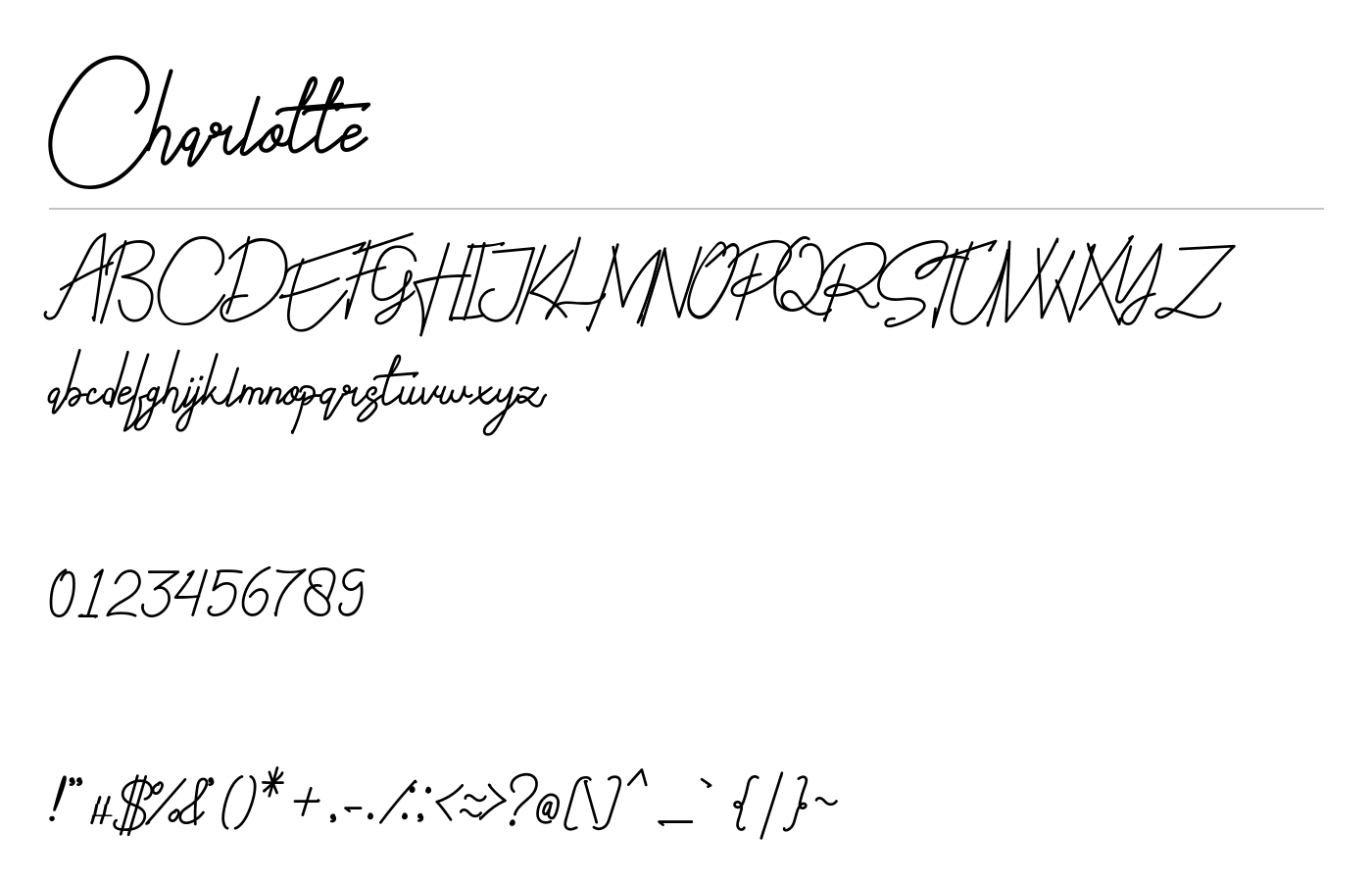
Charlotte Script is a delicate, elegant handwritten font characterized by its thin, flowing lines and graceful, connected letterforms. Its slender and slightly upright style gives it a refined and personal touch, making it ideal for stylish branding, invitations, and feminine designs that seek a modern yet intimate feel. This font works best in projects where a sophisticated handwritten look is desired, adding a charming and approachable personality without overwhelming the design.
Charlotte Script Font
About Charlotte Script Font